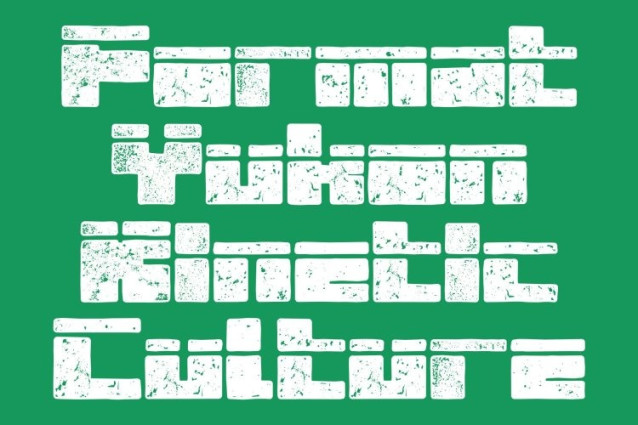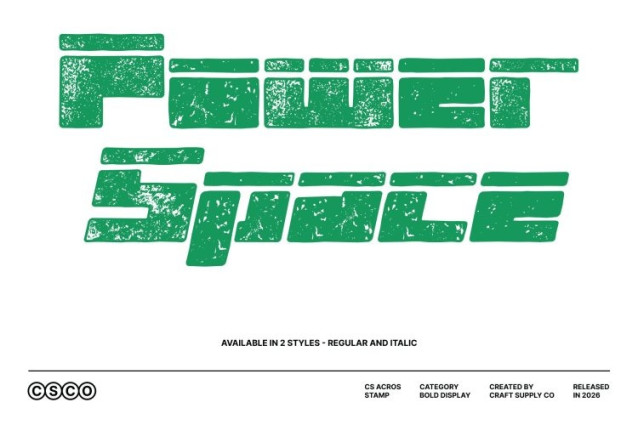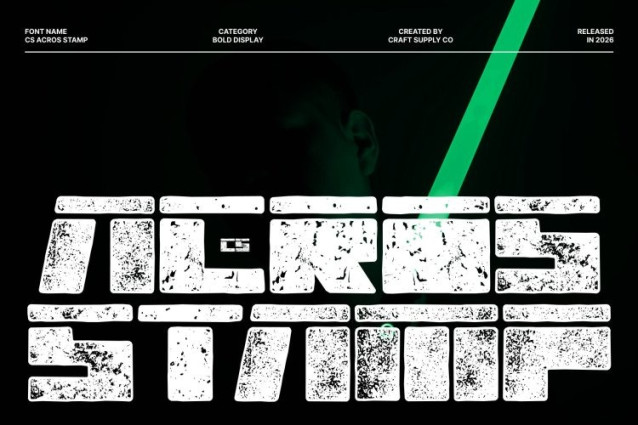
CS Acros Stamp Font
CS Acros Stamp Font This is a bold display font built on strong techno foundations and enhanced with a vintage stamp effect. Its digital-inspired structure is paired with rough, inked textures that give the font an aged, tactile appearance. This fusion creates a striking contrast between futuristic precision and old-school, handcrafted character resulting in typography that feels both modern and timeless.
Blocky Techno Forms with Aged Impact
Defined by solid, blocky letterforms and sharp geometric construction, this font delivers maximum visual impact. The added stamp texture introduces subtle imperfections, worn edges, and uneven ink impressions, transforming its clean techno shapes into expressive, vintage-styled forms. This makes the font feel powerful, raw, and visually engaging.
Playful Energy with Artistic Texture
Despite its strong, futuristic structure, carries a playful and expressive personality. The distressed stamp finish adds artistic depth and character, preventing the font from feeling rigid or overly mechanical. Each letter feels alive pressed, imperfect, and full of creative energy.
Perfect for Futuristic Branding with a Retro Soul
Ideal for futuristic branding, creative posters, album artwork, streetwear visuals, and experimental design projects, this font stands out by blending high-tech aesthetics with nostalgic, old-design charm. It’s the perfect choice for designers who want to communicate innovation while embracing vintage texture, artistic grit, and bold visual storytelling.